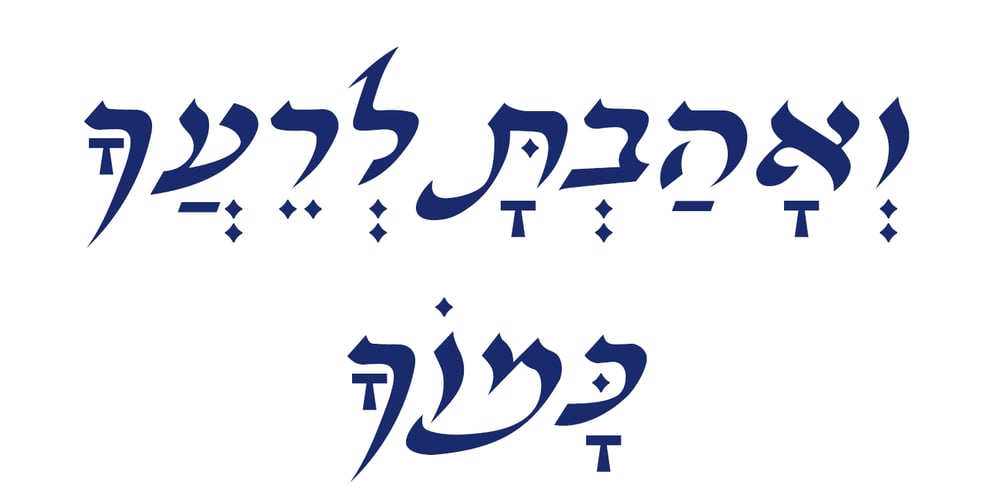
Hebrew Karina
Hebrew Karina font
Hebrew Karina Font Family was designed by Sami Artur Mandelbaum and published by Samtype. Hebrew Karina contains 1 styles and family package options. This is a beautiful font to use in invitations, posters, and small texts